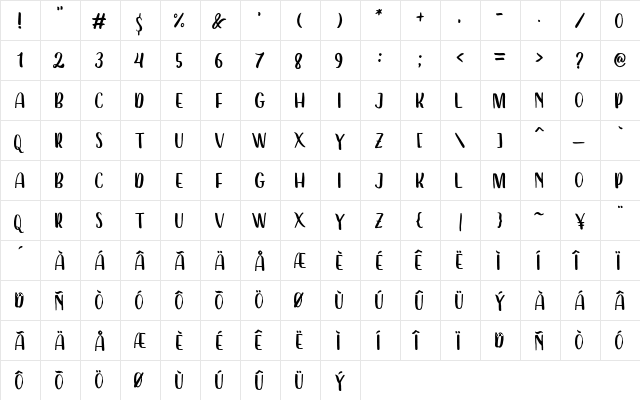
Dearday Sans
| Style | Sans |
| Foundry | Letterhend Studio |
| Designer | Letterhend Studio |
Design Context for Dearday Typeface
Dearday is a composed and adaptable typeface that performs quietly and consistently across a wide range of design contexts.